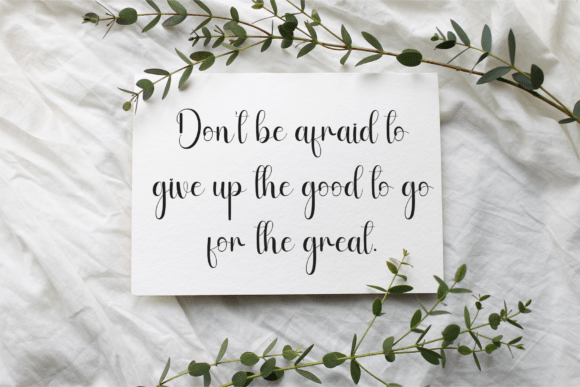
Introducing Fresh Mints Font: Elevate Your Design with Elegance and Fluidity
In the world of typography, fonts play a crucial role in conveying the tone and personality of a brand or design. Among the numerous fonts available, Fresh Mints stands out as a stylish handwritten script font that exudes elegance and fluidity. Its smooth, flowing strokes create a natural and sophisticated feel, making it perfect for a wide range of applications, from branding and invitations to creative projects.
What is Fresh Mints Font?
Fresh Mints is a modern script font that embodies the perfect blend of charm and sophistication. Designed with a focus on fluidity and elegance, this font is ideal for designers looking to add a personal touch to their work. The smooth, cursive strokes of Fresh Mints create a sense of movement and harmony, making it suitable for designs that require a touch of refinement.
Key Features of Fresh Mints Font
- Elegant and Fluid Strokes: Fresh Mints boasts smooth, flowing strokes that give it a natural and sophisticated appearance.
- Handwritten Script Style: The font’s handwritten script style adds a personal touch to any design, making it perfect for creative projects.
- Balanced Charm and Modernity: Fresh Mints strikes a perfect balance between charm and modernity, making it versatile for various design applications.
- Suitable for Various Projects: From branding and invitations to creative projects, Fresh Mints is a versatile font that can elevate any design.
How to Use Fresh Mints Font in Your Designs
Fresh Mints is a versatile font that can be used in a variety of design projects. Here are some ideas on how to incorporate Fresh Mints into your work:
Branding and Logo Design
Fresh Mints can be used to create elegant and sophisticated brand logos that stand out from the competition. Its smooth strokes and flowing curves make it perfect for brands looking to convey a sense of luxury and refinement.
Invitations and Event Design
Whether you’re designing invitations for a wedding, birthday party, or corporate event, Fresh Mints is an excellent choice. Its elegant and cursive style adds a touch of sophistication to any invitation.
Creative Projects and Art
Fresh Mints is also suitable for creative projects such as art, illustrations, and graphic design. Its unique and stylish appearance can add a personal touch to any artwork.
The Benefits of Using Fresh Mints Font
Using Fresh Mints in your designs comes with several benefits. Here are some of the advantages of choosing Fresh Mints:
Enhances Visual Appeal
Fresh Mints can enhance the visual appeal of your designs, making them more engaging and sophisticated.
Versatile and Adaptable
Fresh Mints is a versatile font that can be used in various design projects, from branding and invitations to creative projects.
Easy to Read and Understand
Despite its elegant and cursive style, Fresh Mints is easy to read and understand, making it suitable for designs that require a clear and concise message.
Tips for Using Fresh Mints Font Effectively
To get the most out of Fresh Mints, here are some tips for using it effectively in your designs:
Pair it with Other Fonts
Fresh Mints can be paired with other fonts to create a unique and visually appealing design. Experiment with different font combinations to find the perfect match.
Use it in Moderation
While Fresh Mints is a beautiful font, it’s essential to use it in moderation. Avoid overusing it, as it can make your design look cluttered and overwhelming.
Experiment with Different Sizes and Colors
Don’t be afraid to experiment with different sizes and colors of Fresh Mints. This can help create visual interest and add depth to your design.
In conclusion, Fresh Mints is a stylish handwritten script font that can elevate any design with its elegance and fluidity. Its smooth strokes, flowing curves, and balanced charm and modernity make it perfect for a wide range of applications. By incorporating Fresh Mints into your designs, you can add a personal touch and create visually appealing and sophisticated designs that stand out from the competition.